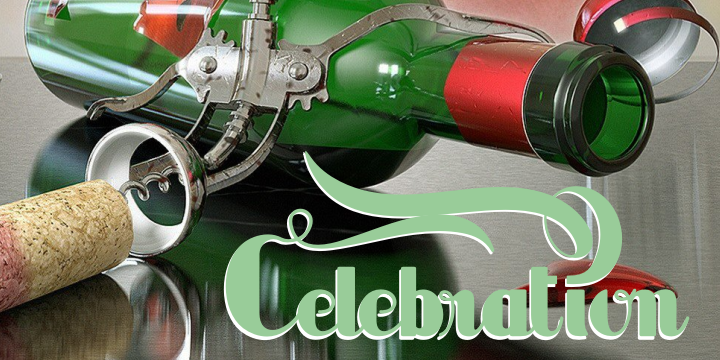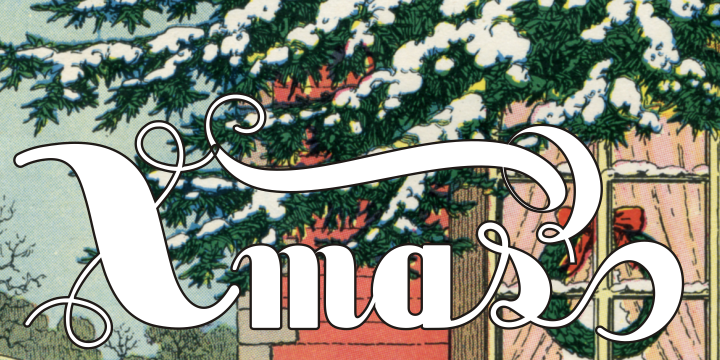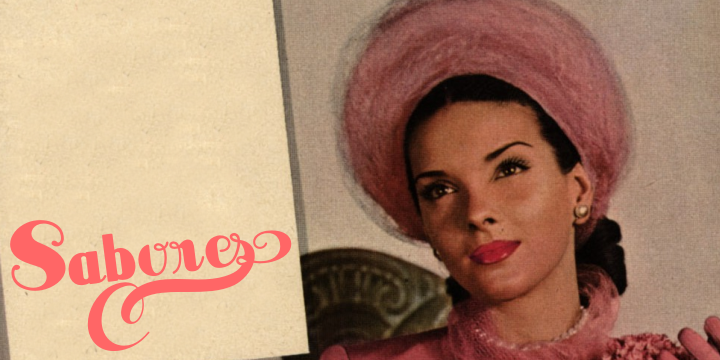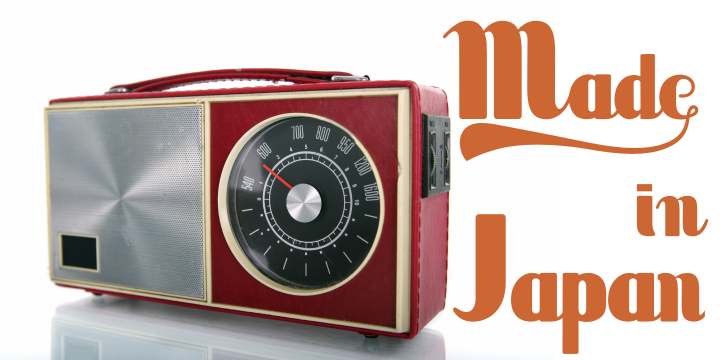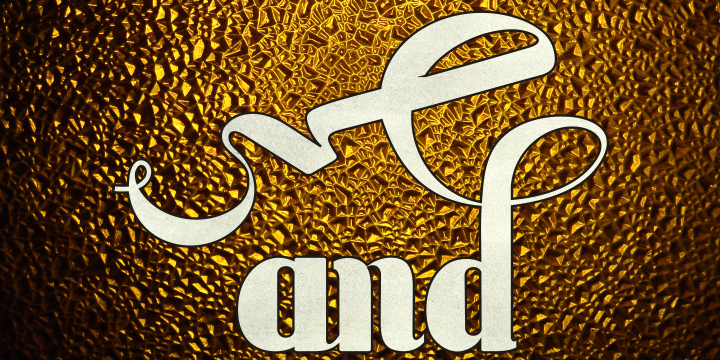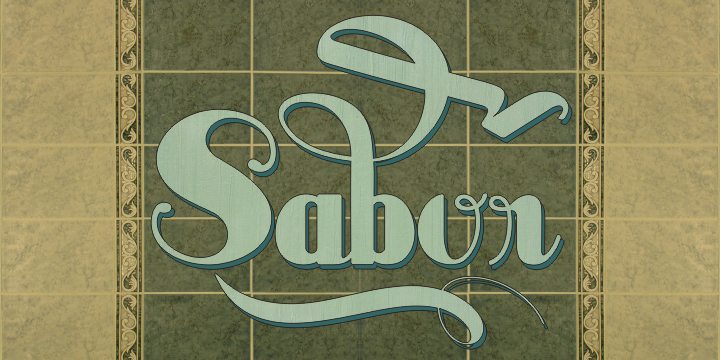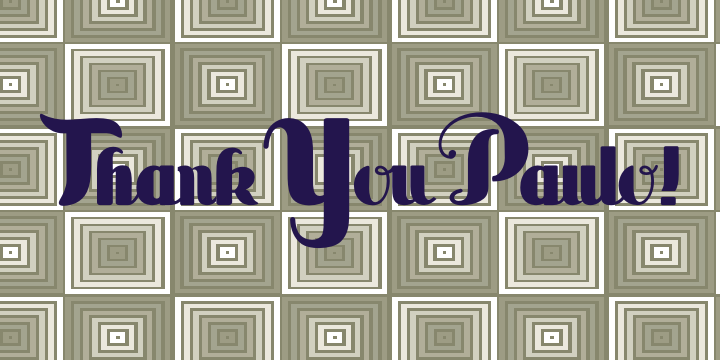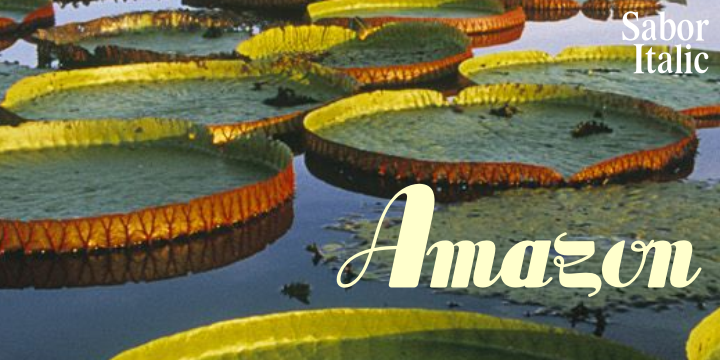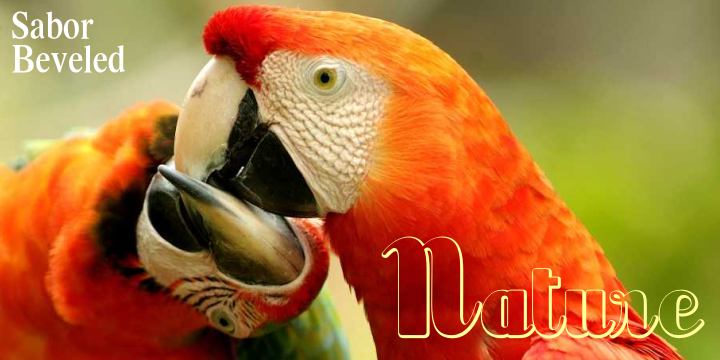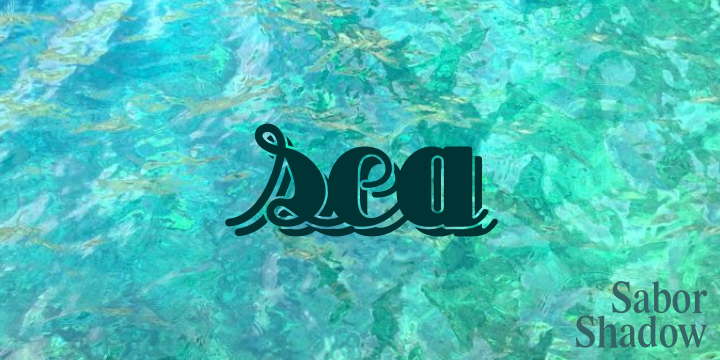
About this font family
Sabor is a voluptuous upright connected display font with mixed taste of script fonts. There were many inspirations for Sabor, but all started with a book from the 1950s about the battles of World War II. To that first sketches of a naive dense display typeface we, day by day, start to create a mixed style evolving some lettering concepts from 1950s, some calligraphy notions and the first display ideas. The feeling of this font is good to be used in many artworks, like logos, packaging, party invitations, layouts for t-shirts, magazine headings, and much more, since websites to and all kind of printed jobs.
That font is not really a script, but, like the scripts we strongly recommends to use the caps only in the beginning of words and sentences, to contrast with the lower cases : it’s not designed for all-caps settings, so avoid that kind of use.
This font has almost 700 glyphs and supports the most important Latin-based languages. We works hard in a tour-de-force kerning: over 12.000 kerning pairs soft adjusted handily. Its OpenType features include final forms, initial forms, special sets (upper and lowercase’s), hundreds of contextual alternates ligatures providing letter-form variations and connections that make your designs really special, and ornaments (tails).
Because of its high number of alternate letters and combination’s, we suggest the use of the glyph palette to find ideal solutions to specific designs. The sample illustrations will give you an idea of the possibilities. You have full access to this amazing stuff using InDesign, Illustrator, QuarkXpress and similar software. However, we still recommend exploring what this font has to offer using the glyphs palette: principally to get all the power of the Contextual Alternates feature. You can get an idea of the power of this font looking at the “Sabor User Guide”, a pdf brochure in the Gallery section.
Also available two sister fonts easy to use : SaborWords and SaborRasgosEscritura
Sabor has original letters designed by Iza W and overall creative direction plus core programming by Paulo W.